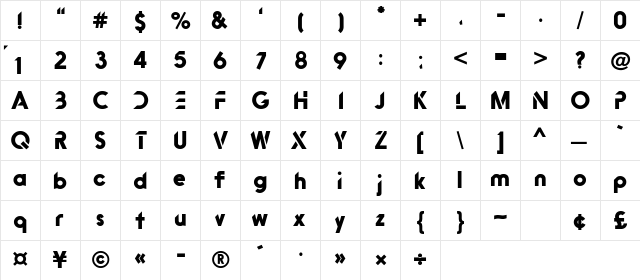
Bitink Regular
Design Context for Bitink Typeface
Bitink offers clean, dependable letterforms without strong stylistic allegiance, making it a practical choice for designers who need flexibility.
Pro Tip: Use Bitink in both headline and body roles to test its range before committing to a single application.